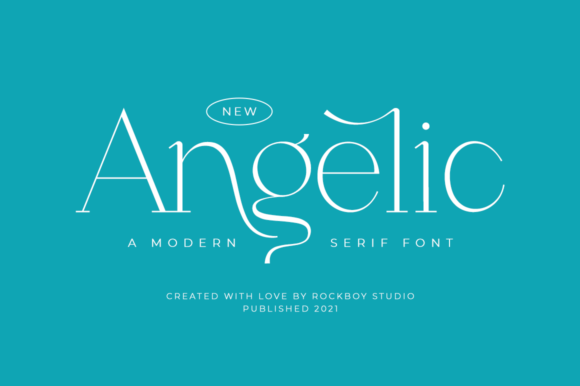
The Angelic Font: Elevate Your Creations with Elegance
I’ll never forget the time I was working on a project for a client who wanted a sophisticated, elegant look. I had spent hours browsing through font libraries, but nothing seemed quite right. That’s when I stumbled upon the Angelic font. Its thin, serif lines and classic feel immediately caught my attention, and I knew I had found the perfect fit. In this article, I’ll share my experience with the Angelic font, its features, and how to make the most of it in your designs.
- ✨ Elegant and authentic serif design
- ✅ Thin font lines that add a touch of sophistication to any project
- 💡 Versatile and suitable for a wide range of topics and themes
- 🎨 Beautiful OpenType features and glyphs to enhance your designs
While the Angelic font is an excellent choice, there are a few things to keep in mind:
- 🤔 Limited use of bold or heavy font weights, which may not be suitable for all designs
- ⚠️ Some characters may not be suitable for small font sizes, so be sure to test and adjust accordingly
The Angelic font was designed with inspiration from classic serif fonts and a touch of modern elegance. Its creator aimed to craft a font that would be both versatile and sophisticated, suitable for a wide range of design projects. Whether you’re working on a logo, brochure, or website, the Angelic font is sure to elevate your creations.
| What is the Angelic font suitable for? | The Angelic font is suitable for a wide range of design projects, including logos, brochures, websites, and more. |
| Is the Angelic font easy to read? | Yes, the Angelic font is designed to be elegant and legible, making it suitable for body text and long-form content. |